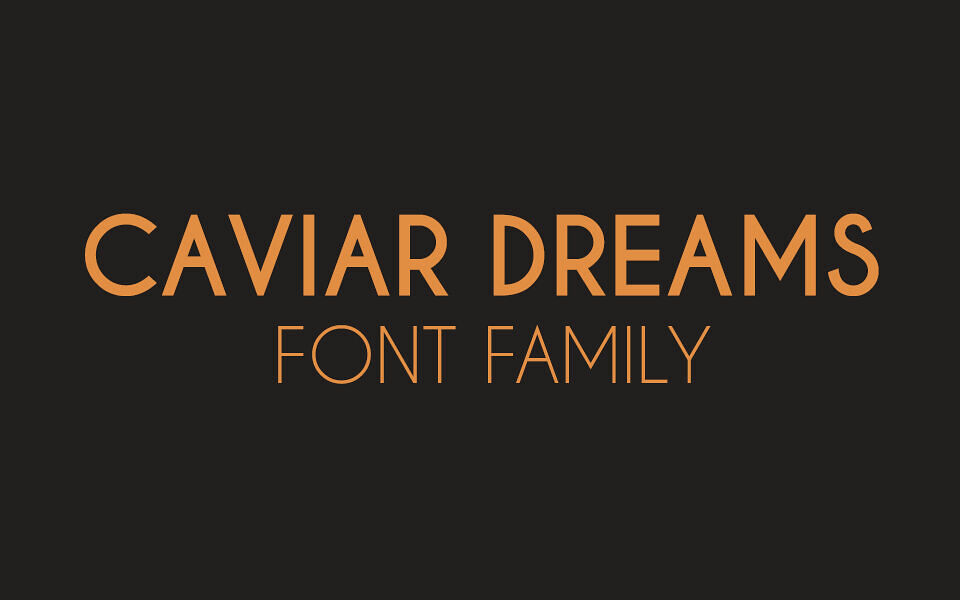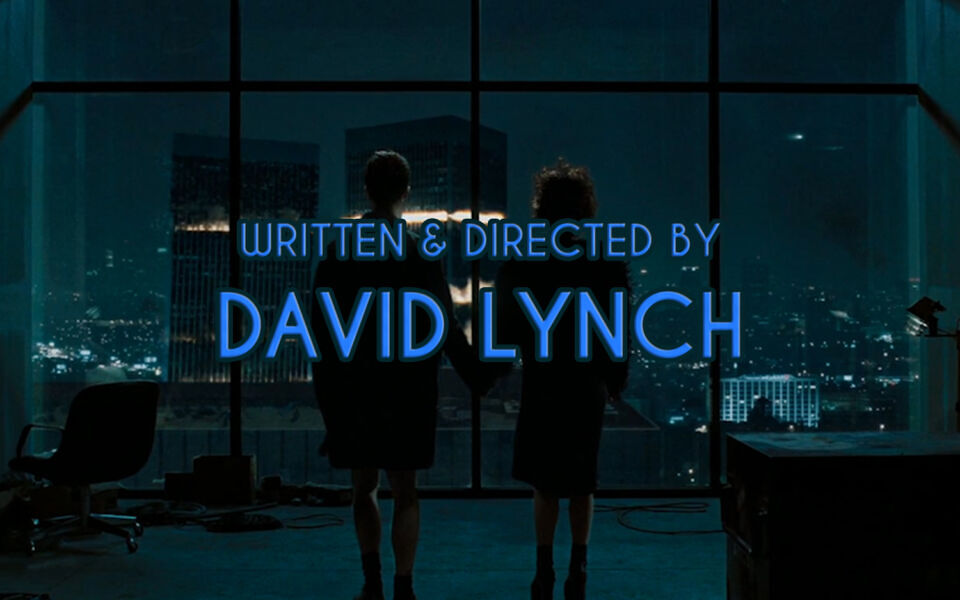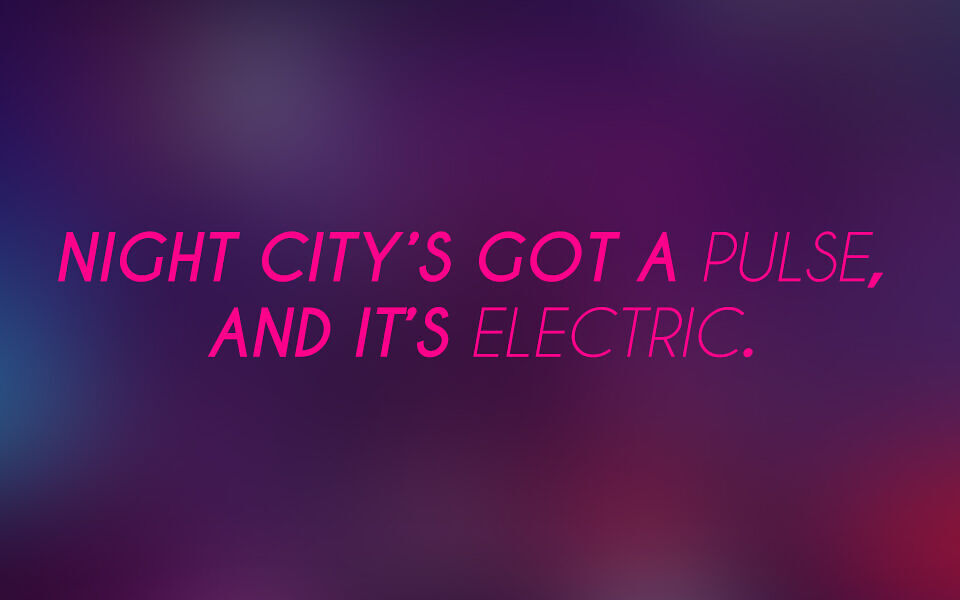
Presenting the Caviar Dreams TrueType Font Family. More geometric sans-serif love, Nymphont style. Download contains 4 files: Caviar Dreams Regular, Italic, Bold, and Bold Italic.